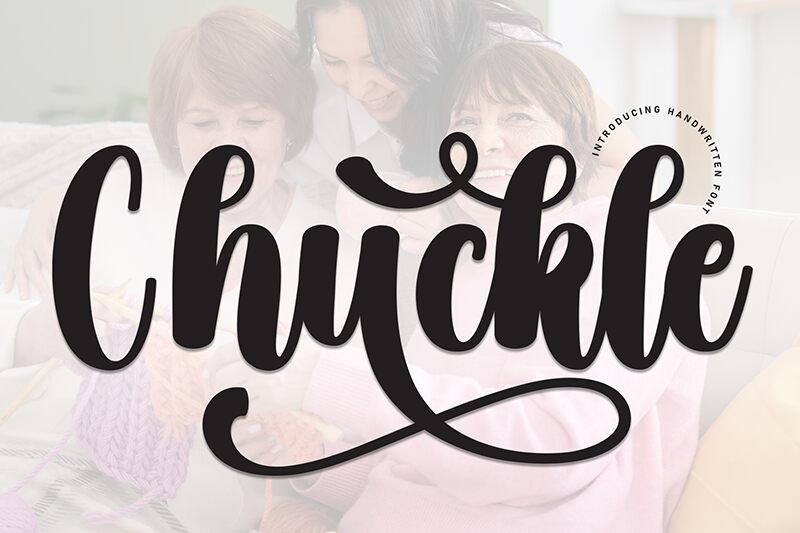
Chuckle
Chuckle font by Scratchones is a brush bold font that seamlessly integrates elegance with expressiveness. With its modern appeal, it features flowing and cohesive letters which together create an outstanding, sophisticated design.
Ideal for creating fabulous headlines and writing memorable logotypes, this font is also suitable for use on store signage and branding projects in general. Use it as well in book covers, greeting card designs, invitations, and social media posts. Websites can also benefit from its use especially when picking the perfect typeface in which to display catchphrases or mission statements. Moderate its use when displaying larger blocks of text for better results reading-wise.